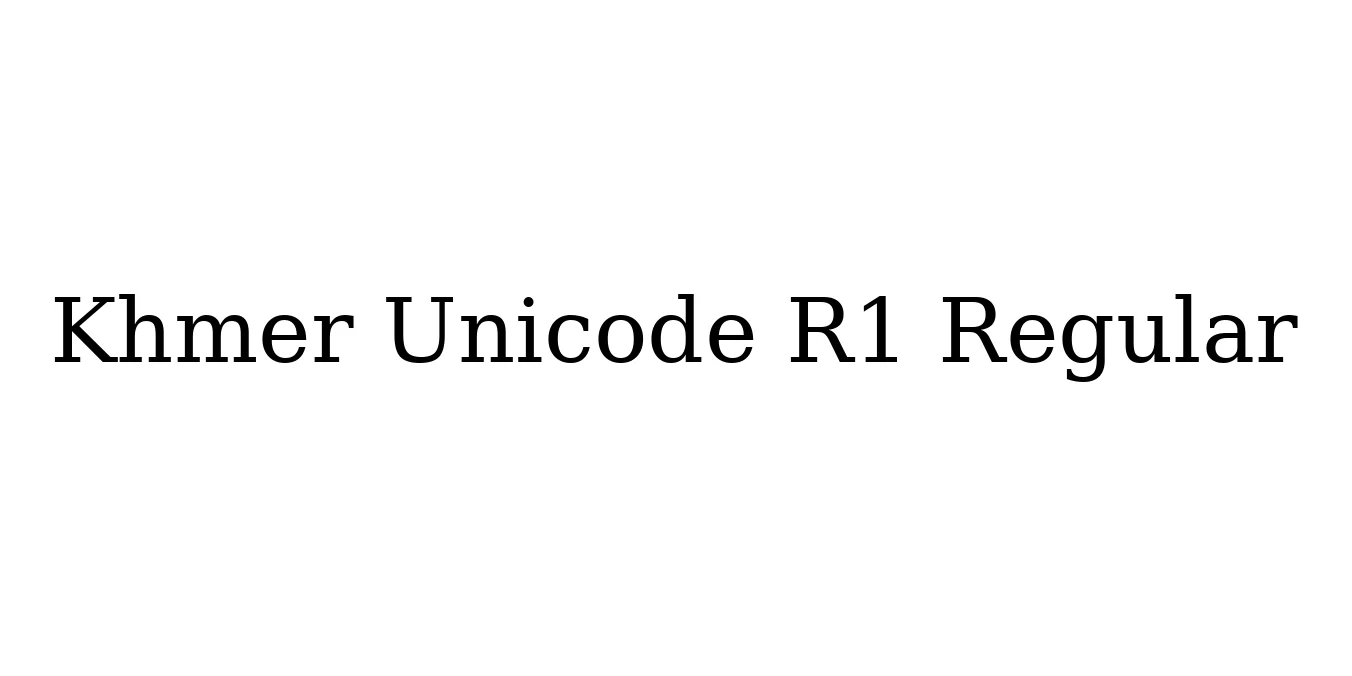
Khmer Unicode R1 Regular
Designed by Khmer OS Team / NiDA
| Category | Serif / Khmer Script |
| Designer | Khmer OS Team / NiDA |
Khmer Unicode R1 Regular is a vital component of the Khmer Unicode project, which was established to standardize the digital representation of the Cambodian script. Developed primarily by the National Information Communications Technology Development Authority (NiDA) and the Khmer OS project, this font was instrumental in moving Cambodia away from legacy non-standard encodings toward a universal system. This transition ensured that Khmer text could be searched, indexed, and displayed correctly across diverse operating systems and global web platforms.
The design of the R1 Regular variant focuses on professional legibility and traditional serif aesthetics. It features clean, balanced strokes that maintain the intricate details of Khmer glyphs even at smaller point sizes. Because of its clarity and adherence to standard script rules, it has become a staple for government communications, academic publishing, and formal documentation throughout Cambodia, serving as a reliable benchmark for modern Khmer typography.
Khmer Unicode R1 Regular Best Uses
Perfect for government reports, legal papers, and formal business letters.
Excellent for textbooks and research papers requiring high legibility in the Khmer language.
Ideal for informational websites and blogs catering to Cambodian readers.
Widely used in newspapers and magazines for clear, readable body text.